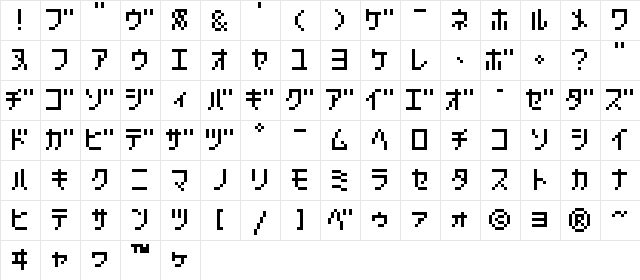
Hachipochi EightKt
Design Context for Hachipochi Typeface
Hachipochi takes a measured approach to typography — its balanced proportions and neutral character make it a reliable workhorse for both digital and print work.